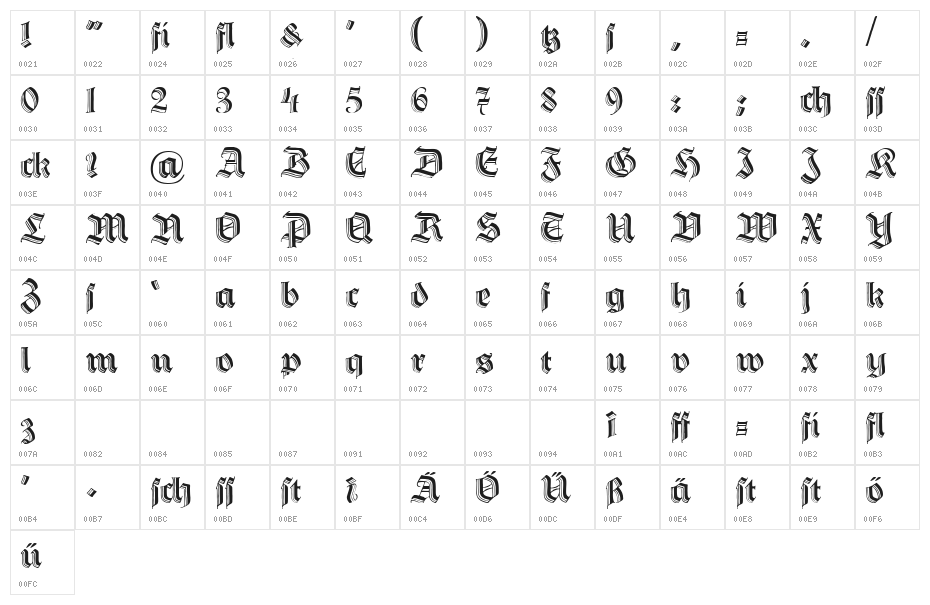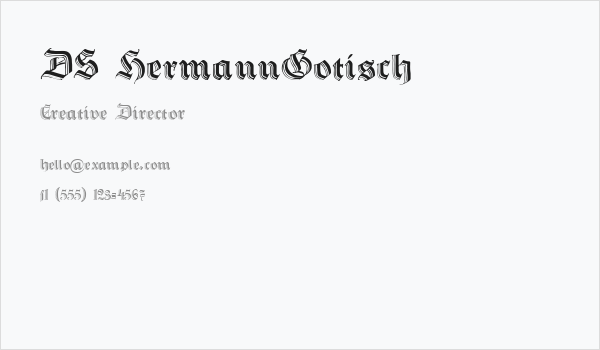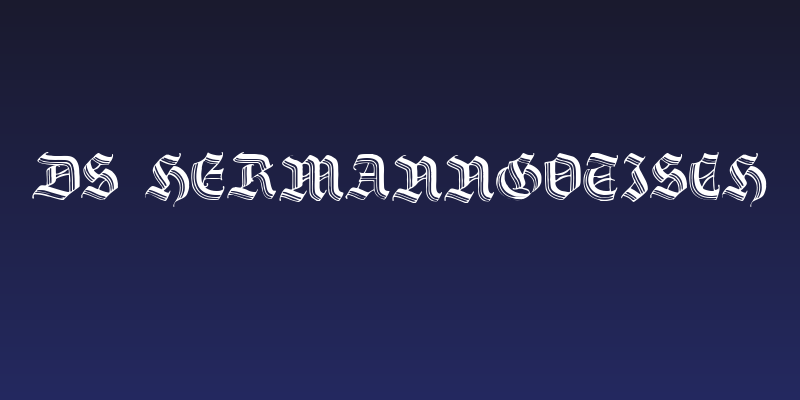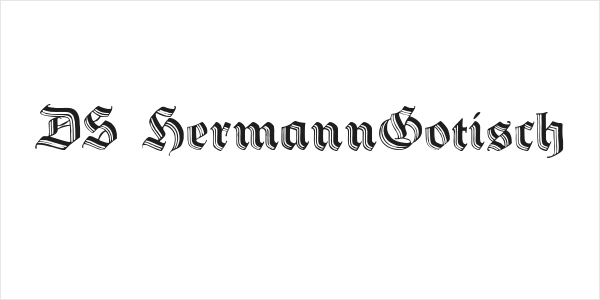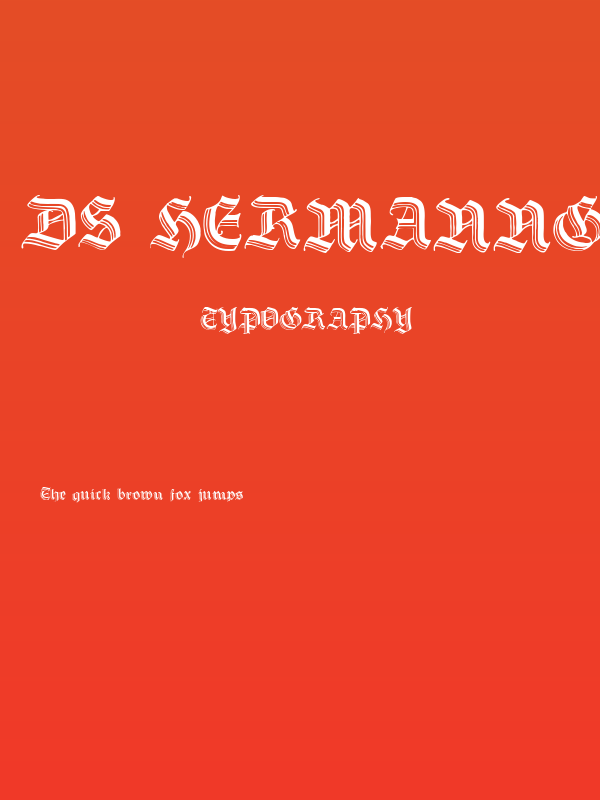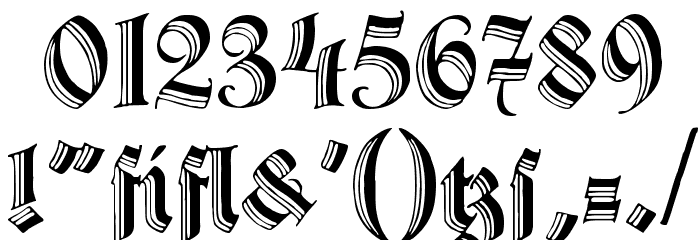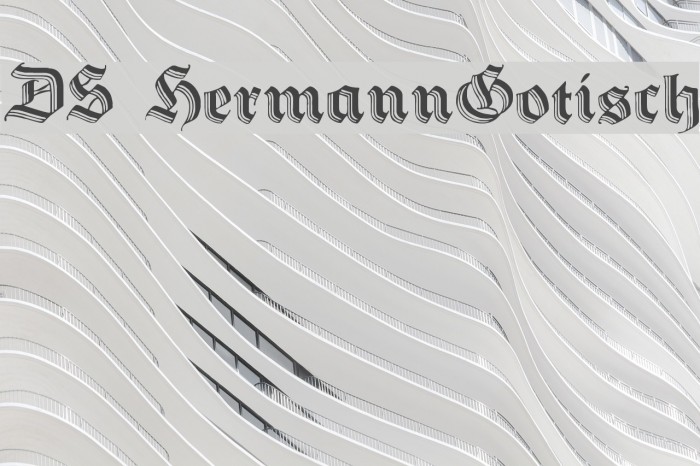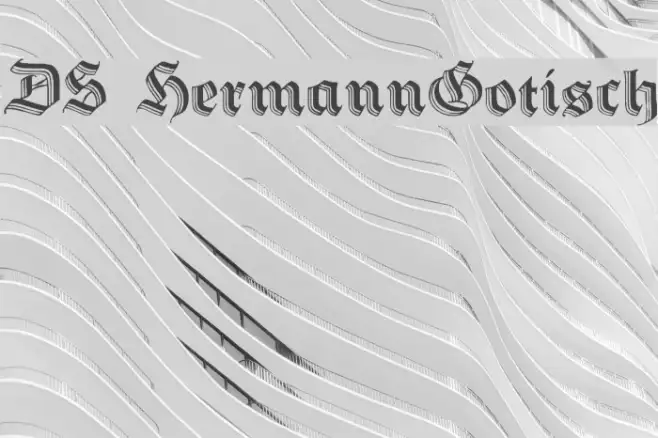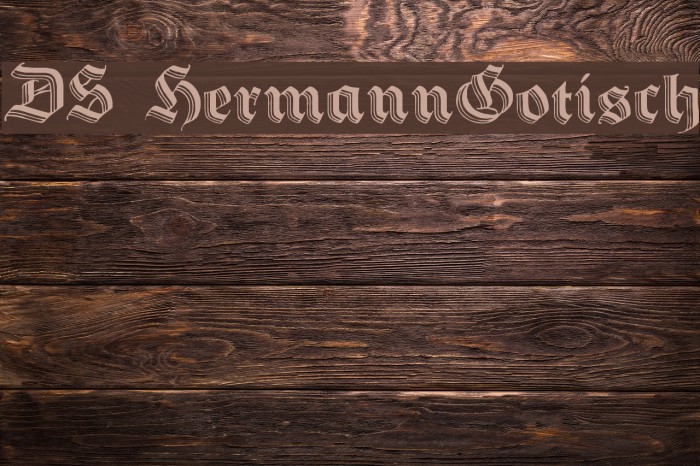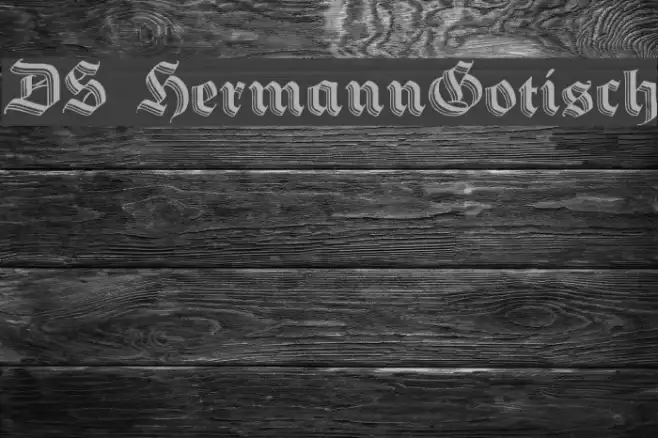
DS HermannGotisch Font
DS HermannGotisch Description
This font features a traditional blackletter style, characterized by its intricate and ornate design. The letters are bold and angular, with sharp edges and dramatic flourishes that give it a historic and gothic appearance. The uppercase and lowercase letters maintain a consistent style, with the uppercase being slightly more elaborate. The numbers and special characters are designed to match the overall aesthetic, ensuring a cohesive look. This font is reminiscent of medieval manuscripts and old-world typography, making it ideal for projects that require a touch of classic elegance and historical depth.
| Overall Style | Vintage |
| Use Case | Logos, Headlines, Decorative text |
| Proposed Projects | Ideal for historical documents, gothic-themed designs, book covers, and event invitations. |